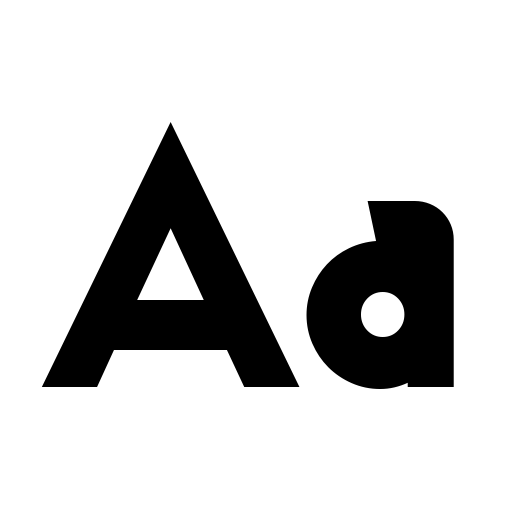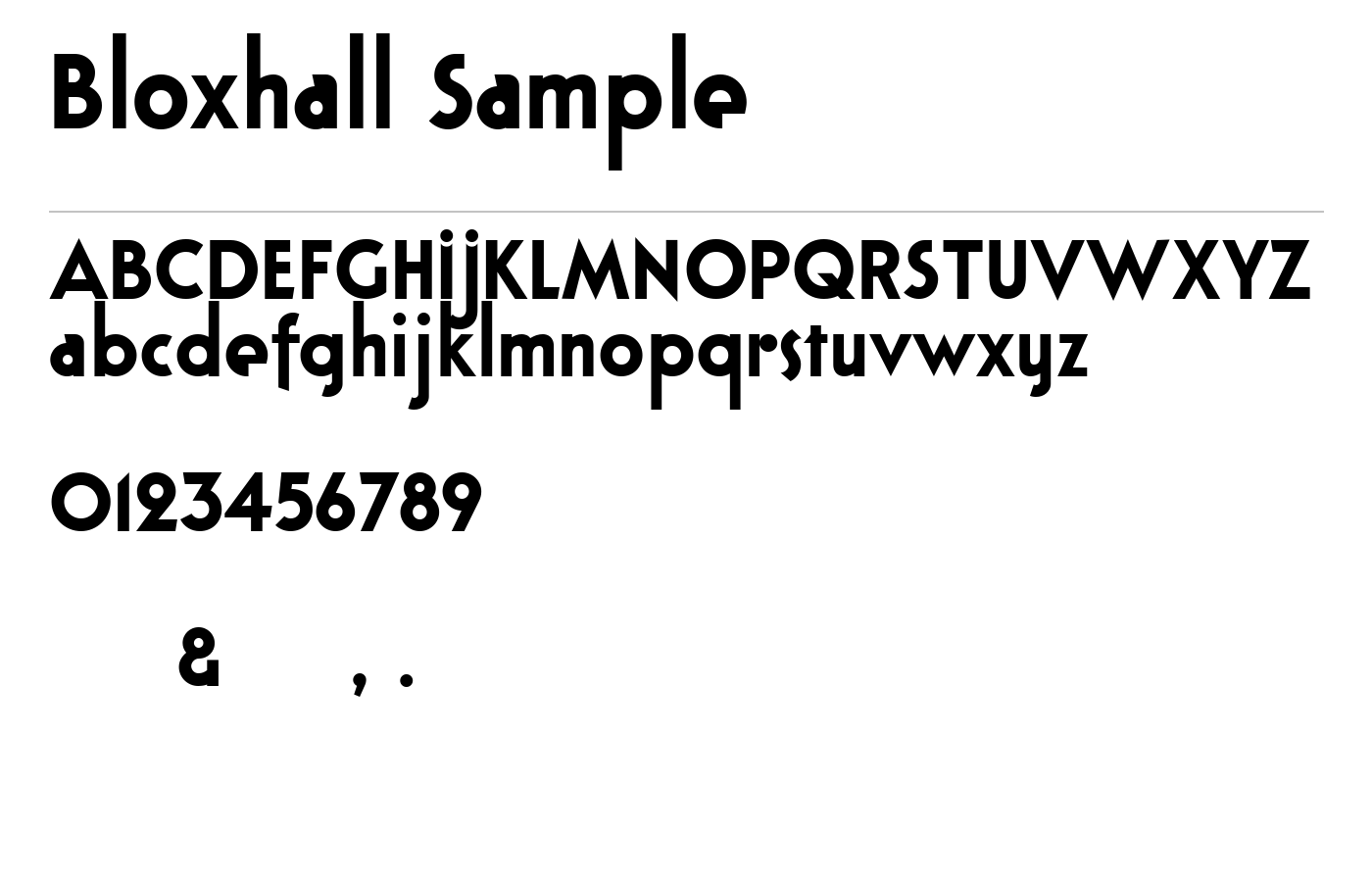
Bloxhall Sample is a bold, geometric sans serif font with a striking Art Deco influence that lends it a stylish and modern feel. Its high x-height, strong vertical lines, and playful letterforms give it a unique personality perfect for eye-catching headlines, branding, and packaging where impact and clarity matter. This font shines in designs that want to convey confidence, creativity, and a contemporary edge.
Bloxhall Sample Font
About Bloxhall Sample Font
| Font family | Bloxhall Sample Font |
| Designer | Ana Parracho |